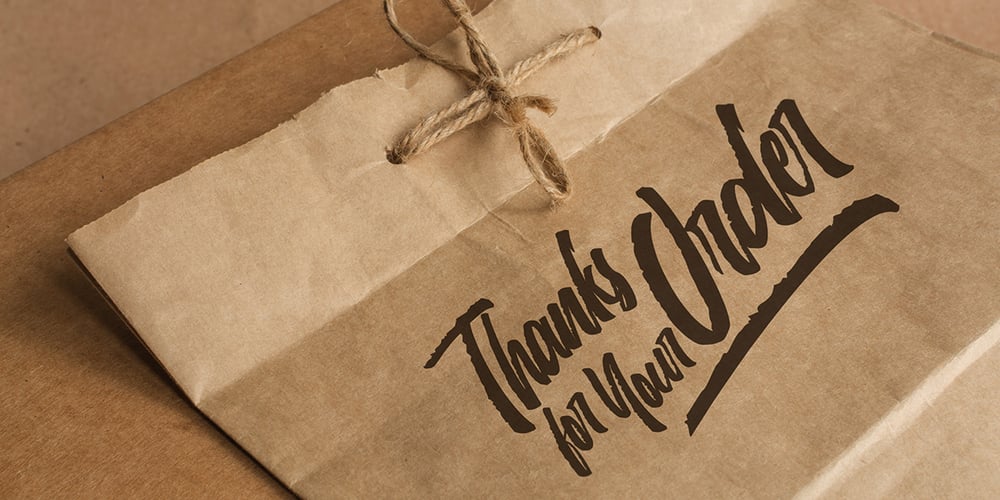
Sansha Font Family was designed by Rudi Suhairi and published by Tegaki. Sansha contains 1 styles and family package options. Proudly presenting: Sansha! Sansha is created with stylistic and rough characters. This great font is also PUA encoded. Sansha is a radical script typeface that comes with Extended Latin Characters. You express your creativity with this font more easily. Sansha works perfectly for logos, display, product branding, wedding invitation card, stationary, packaging, clothing, flyer, apparel, magazines, brochures, labels, posters, badges, etc. Sansha comes with 376 glyphs and 107 alternate characters contain with opentype features. Sansha has many stylistic alternate characters that allowing you to make stuff looks more exclusive and pro standard. You can access all those alternate characters by using OpenType savvy programs such as Adobe Illustrator, Adobe InDesign and CorelDraw X6-X7, Microsoft Word 2010 or later versions. There are additional ways to access alternates/swashes, using Character Map (Windows), Nexus Font (Windows), Font Book (Mac) or a software program such as PopChar (for Windows and Mac). For other programs that doesn’t support OpenType features or Glyphs Panel such as Photoshop, you can use Character Map in Windows to access the alternate characters. Files included: Sansha (otf)